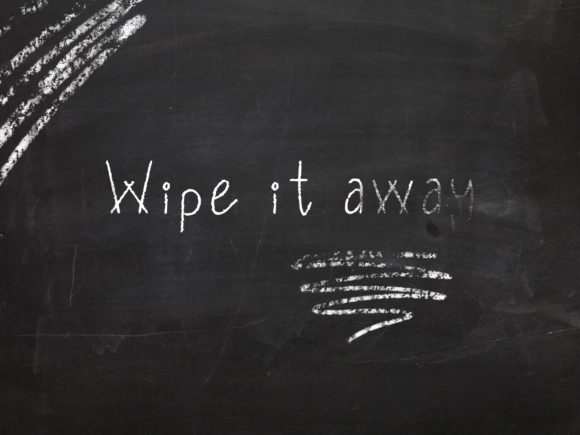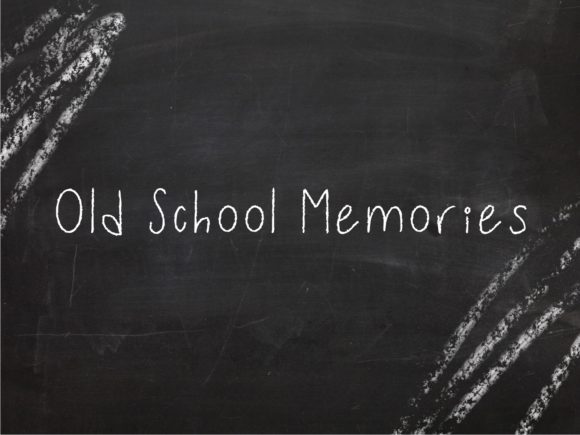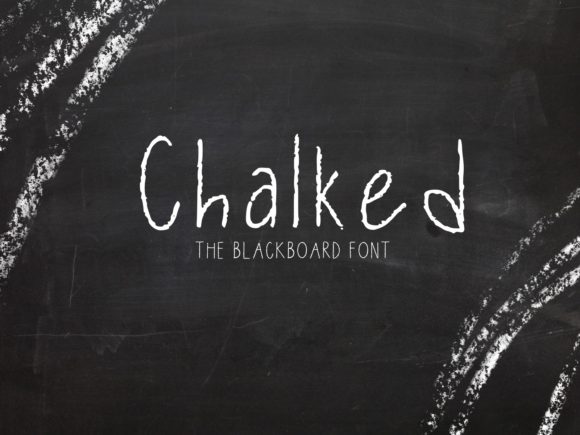
Introducing Chalked Font: The Perfect Addition to Your Design Arsenal
Are you tired of using the same old fonts in your designs? Look no further than Chalked Font, a cute, quirky, and original handwritten font that’s sure to add a touch of personality to your work. With its neat and interesting style, Chalked Font is ideal for a variety of designs, mainly those related to school or children.
What Makes Chalked Font So Special?
Chalked Font is a unique and charming font that’s perfect for designers and crafters who want to add a personal touch to their work. Its handwritten style gives it a warm and friendly feel, making it perfect for designs that require a more approachable and relatable tone. Whether you’re creating materials for a school, designing a kids’ party invitation, or crafting a fun and playful brand identity, Chalked Font is the perfect choice.
Key Features of Chalked Font
- Cute and Quirky: Chalked Font has a playful and whimsical feel that’s sure to delight kids and adults alike.
- Neat and Interesting Style: The font’s unique style makes it stand out from more traditional fonts, adding visual interest to your designs.
- Handwritten: The font’s handwritten style gives it a warm and friendly feel that’s perfect for designs that require a personal touch.
- Versatile: Chalked Font can be used for a wide range of designs, from school materials to kids’ party invitations and more.
Use Cases for Chalked Font
So, what can you use Chalked Font for? The possibilities are endless! Here are a few ideas to get you started:
- School Materials: Use Chalked Font to create fun and engaging materials for your school, such as worksheets, posters, and newsletters.
- Kids’ Party Invitations: Create adorable and eye-catching invitations for kids’ parties that will delight parents and kids alike.
- Crafting and DIY Projects: Add a personal touch to your crafting and DIY projects, such as signs, banners, and other decorative items.
- Brand Identity: Use Chalked Font to create a fun and playful brand identity for your business or organization.
Tips for Using Chalked Font
Here are a few tips for getting the most out of Chalked Font:
- Pair with Other Fonts: Experiment with pairing Chalked Font with other fonts to create a unique and visually interesting combination.
- Use for Headings and Titles: Use Chalked Font for headings and titles to add a touch of personality to your designs.
- Experiment with Colors: Try out different colors and color combinations to see what works best with Chalked Font.
In conclusion, Chalked Font is a unique and charming font that’s perfect for designers and crafters who want to add a personal touch to their work. With its cute and quirky style, neat and interesting design, and versatile uses, Chalked Font is sure to become a favorite in your design arsenal. So why wait? Download Chalked Font today and start creating fun and engaging designs that will delight kids and adults alike!